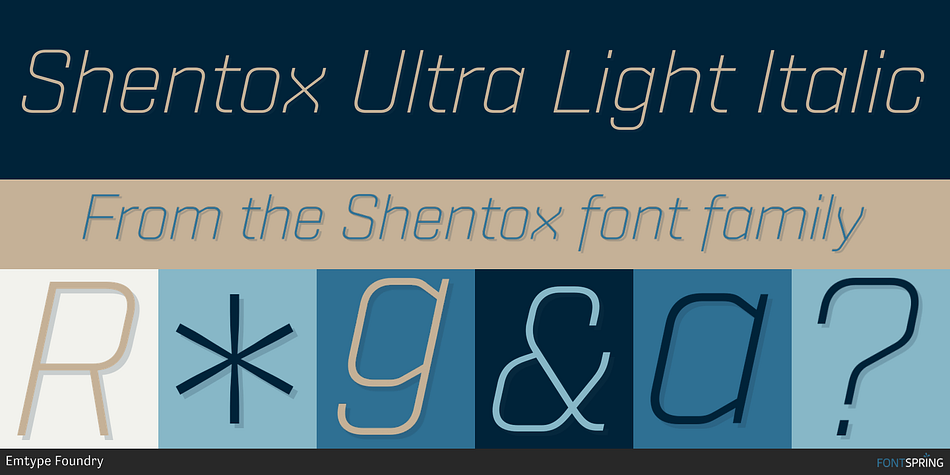
Designed by Eduardo Manso, Shentox is a sans serif font family. This typeface has fourteen styles and was published by Emtype Foundry.
Shentox Ultra Light Italic
Shentox is a highly legible contemporary font with a full range of weights, useable not only as a display family for headlines and posters, but as a distinct, clean font family for branding and general editorial use. It has been carefully drawn paying extra attention to the details, high end finishes that makes Shentox a safe font for use in large scale work. For example, the curves of every individual corner have been adjusted character by character to avoid the common problems encountered with square fonts. Shentox italic, which has a 12 degree slant, has been corrected to avoid distortion when slanted.